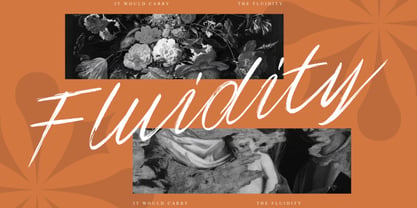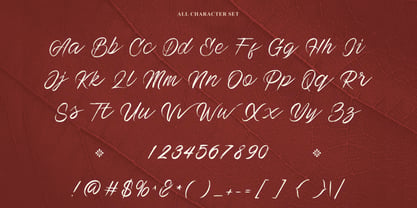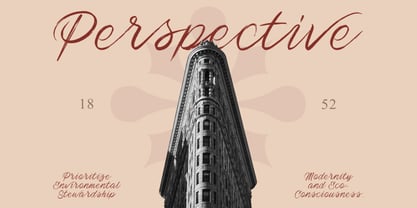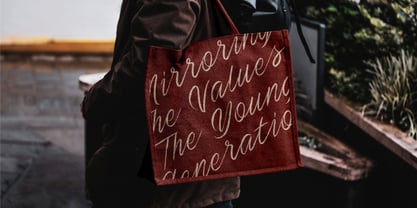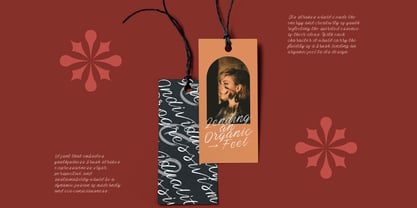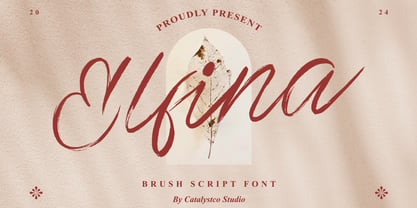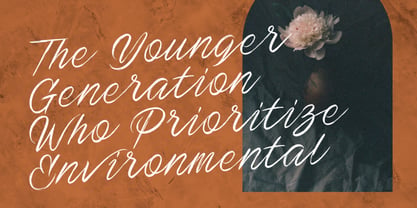
Elfina
by Catalystco Std
The Elfina Font Family was designed by and published by Catalystco Std. Elfina contains 1 styles. More about this family
Elfina is an elegant brush script font that embodies natural flow and refined energy. Its fluid strokes and graceful curves evoke movement and warmth, creating a visual balance between sophistication and organic charm. Perfect for wedding stationery, branding, editorial titles, and artistic projects, Elfina brings emotion and authenticity to every composition. Designed with uppercase and lowercase sets, numerals, and punctuation, Elfina maintains a smooth handwritten rhythm suitable for both print and digital use. Its expressive yet balanced style makes it a versatile choice for designers seeking a timeless, handcrafted brush aesthetic.